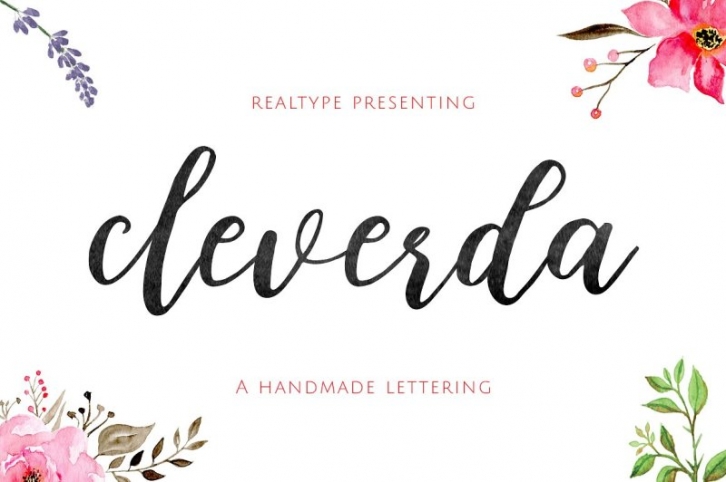
Sweet Cleverda Script is a beautiful hand painted script, organic, fun with dancing baseline and different ligatures.
This fonts can be used for various purposes.such as headings, signature, logos, wedding invitation, t-shirt, letterhead, signage, lable, news, posters, badges etc.